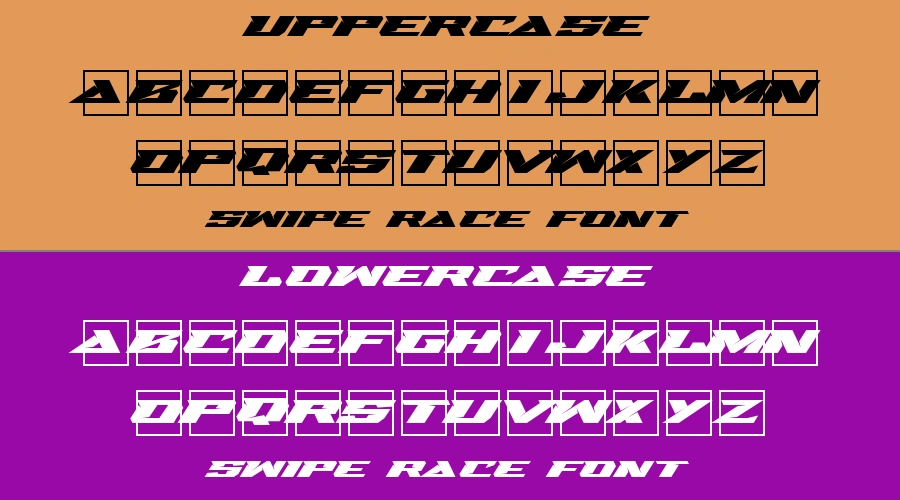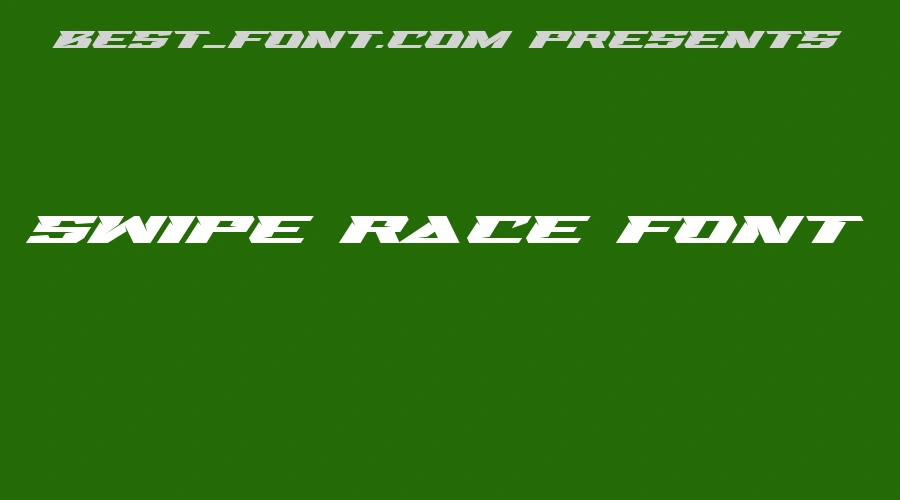
About Swipe Race Font
Swipe Race Font embodies typographic excellence through its masterful combination of consistent rhythm and visual appeal. Created for newspaper text, this typeface delivers exceptional versatility and aesthetic excellence across all applications. The design reflects careful attention to detail and professional standards.
Advanced capabilities include distinctive ornamental caps and versatile stylistic alternates, giving designers creative control. When used in marketing collateral, Swipe Race Font exhibits remarkable table alignment. The harmonious balance between counter aperture and cultural references sets this typeface apart.